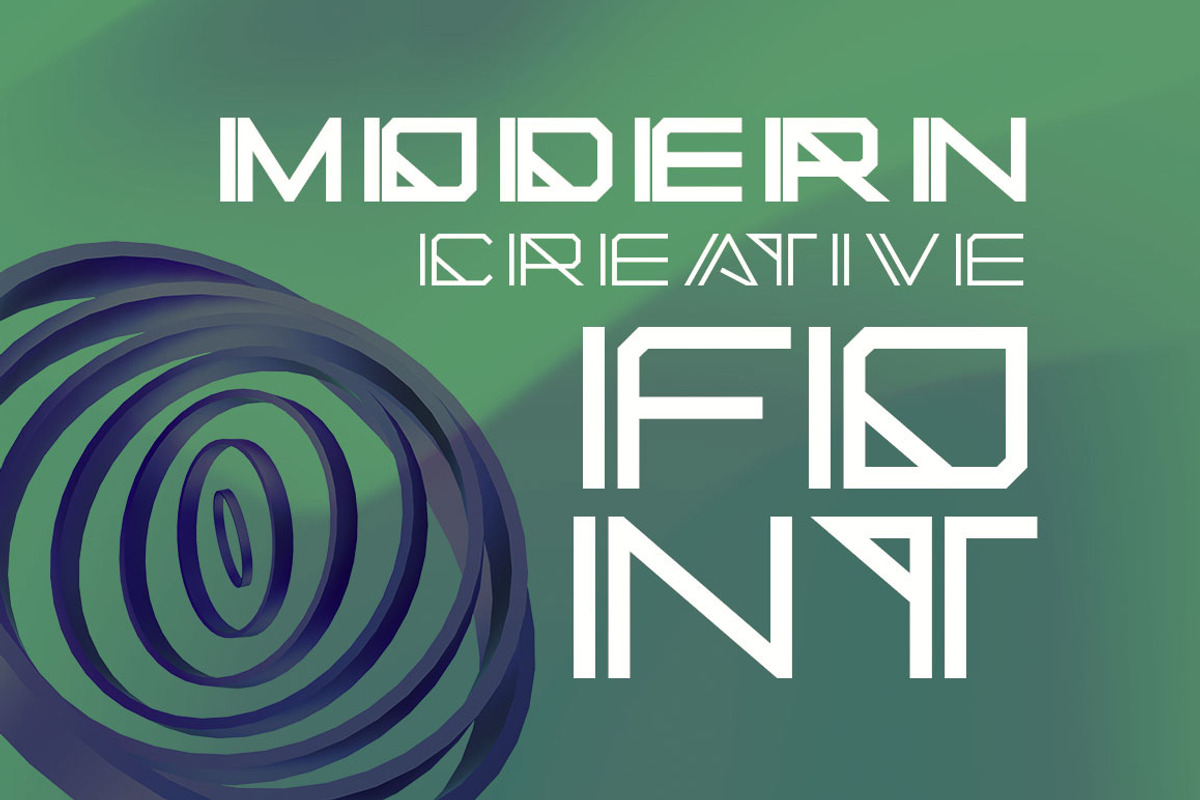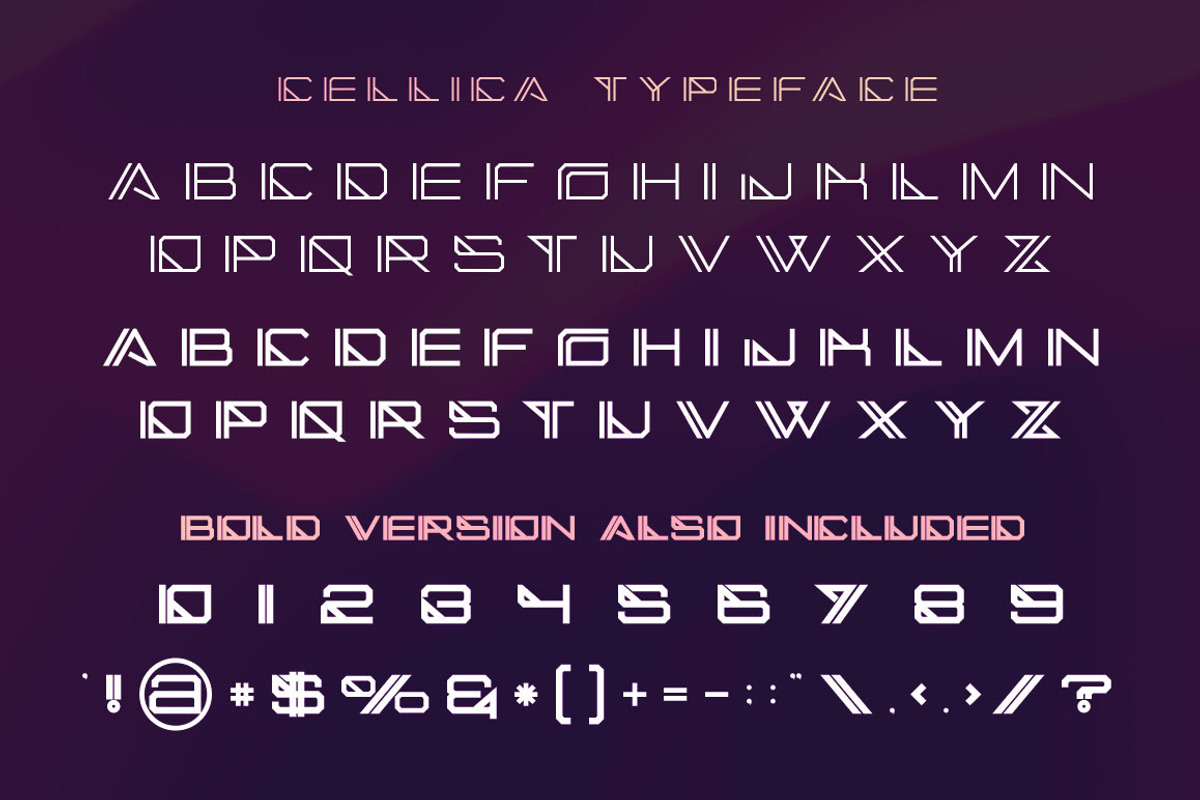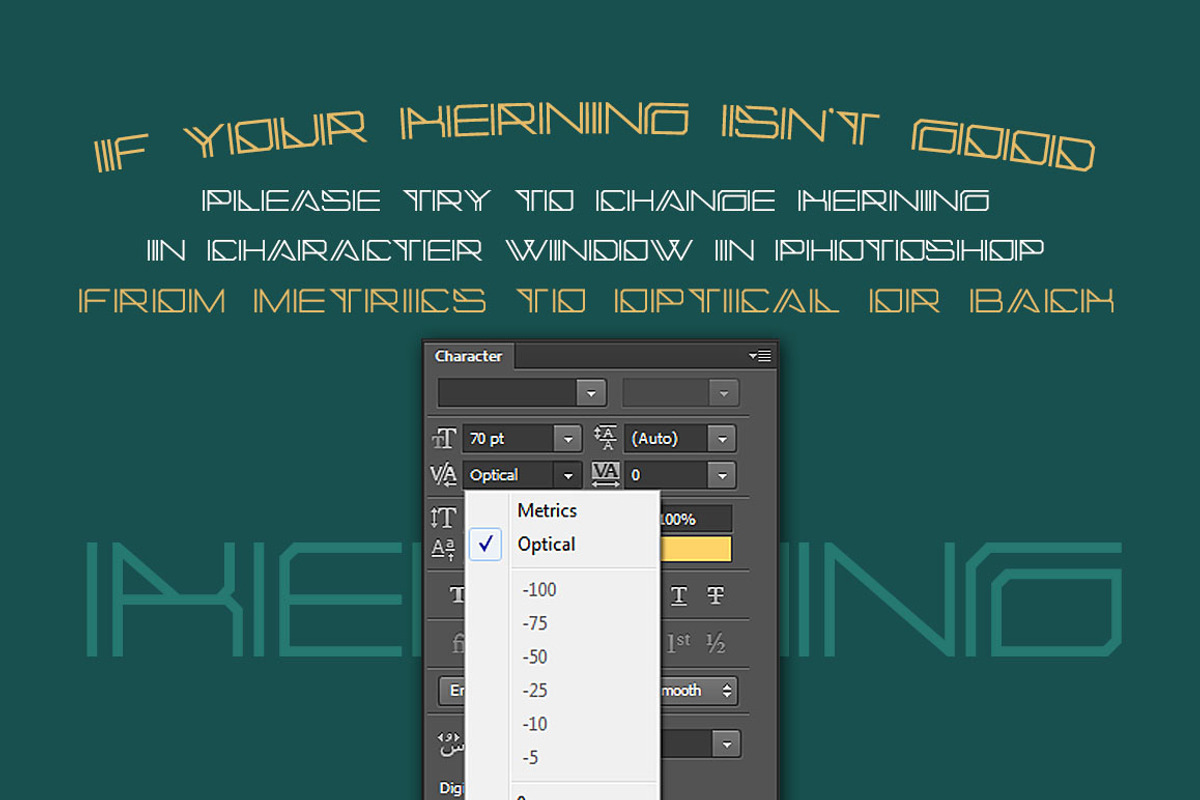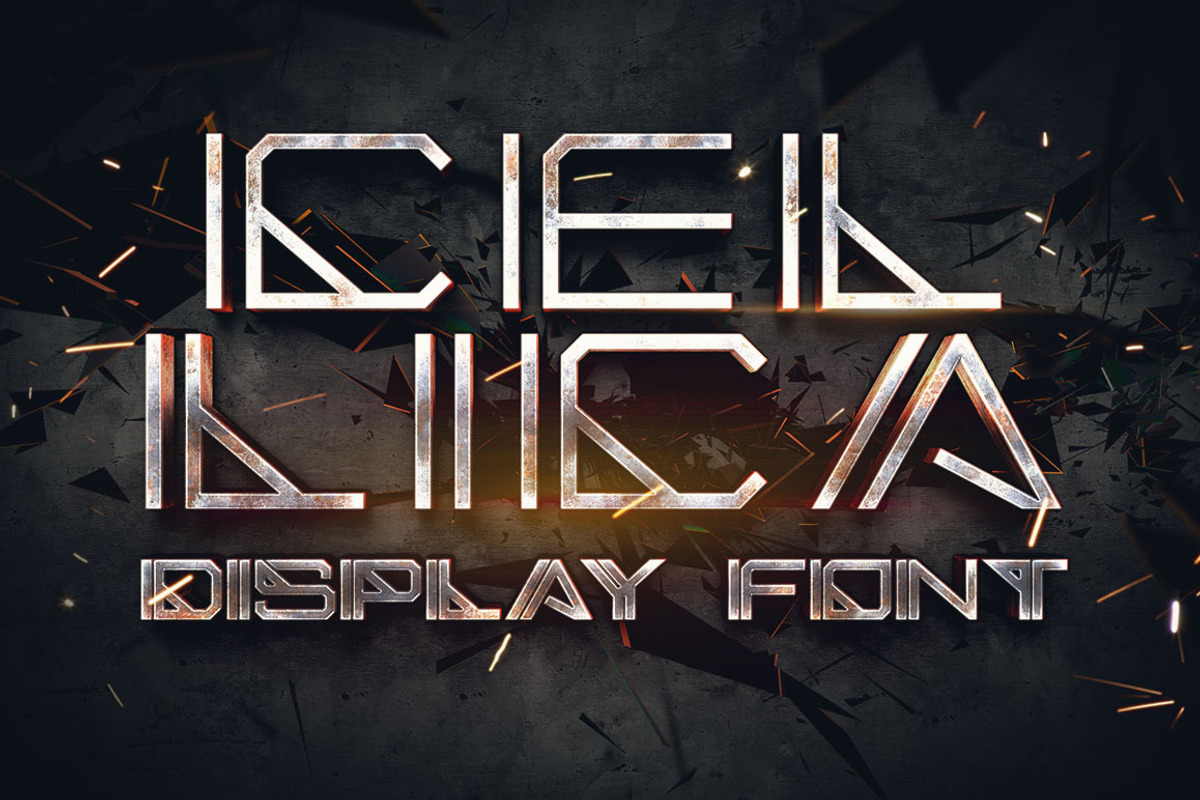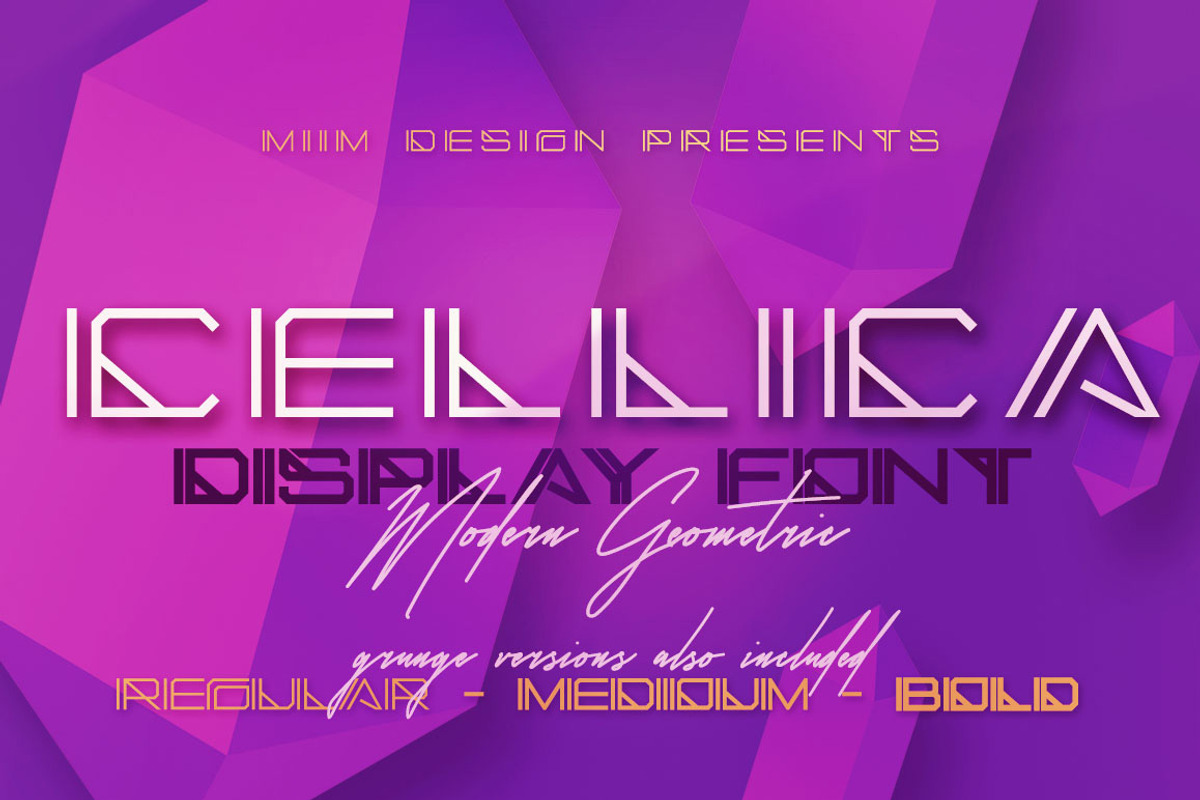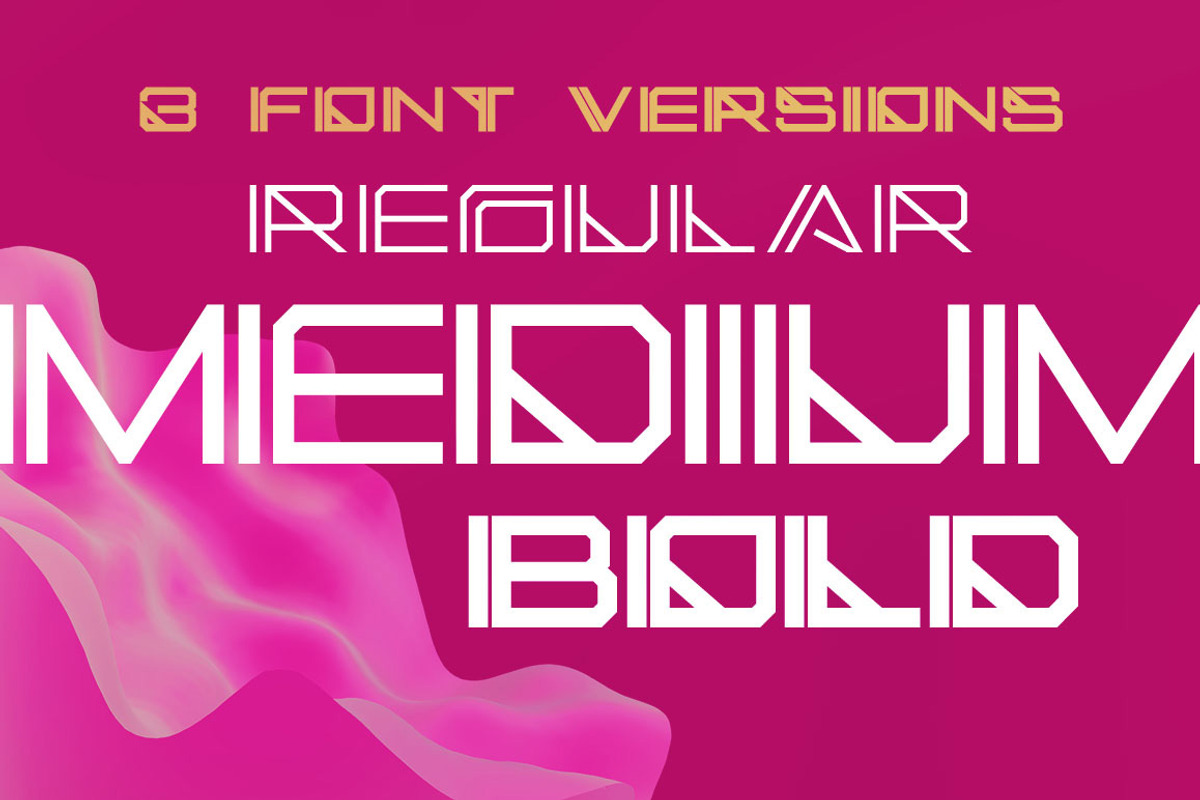
Cellica - Display Font
Geometric, modern & futuristic style font for your new projects. Great for modern or creative style projects!
Why Cellica - Display Font is worth a look
Cellica - Display Font by MIIM fits naturally into Branding, posters, packaging, typography.